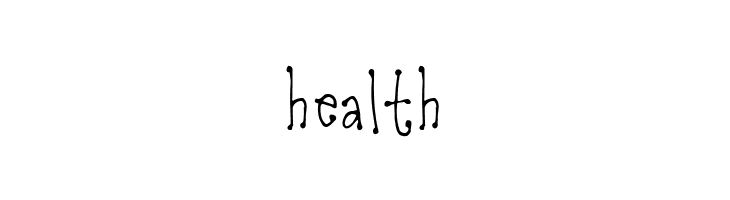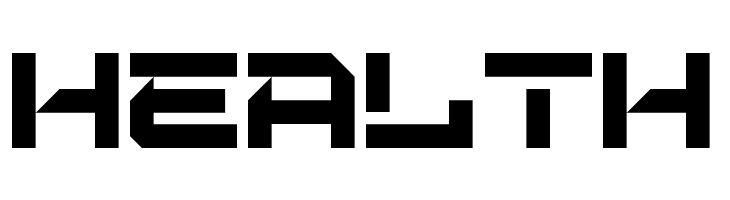
• OPTIAlternateOne
A bold, modern font with strong, thick strokes and a commanding presence.
• Debbie-Alternate
A playful, handwritten font with irregular, organic strokes and a casual vibe.
• Laura-Alternate
A playful, whimsical handwritten font with tall, narrow letters and a casual style.
• Katy Alternate
A playful, hand-drawn font with quirky, uneven strokes.
• Katie Alternate
A playful, hand-drawn font with a whimsical and casual style.
• Marie-Alternate
A playful, handwritten font with quirky, irregular letterforms.
• CasaleTwo Alternates NBP
• Digital Desolation Alternate
A bold, futuristic font with sharp angles and geometric shapes.
• PWAlternate
• Newside FP Alternate Italic
A bold, italic font with dynamic and energetic styling.